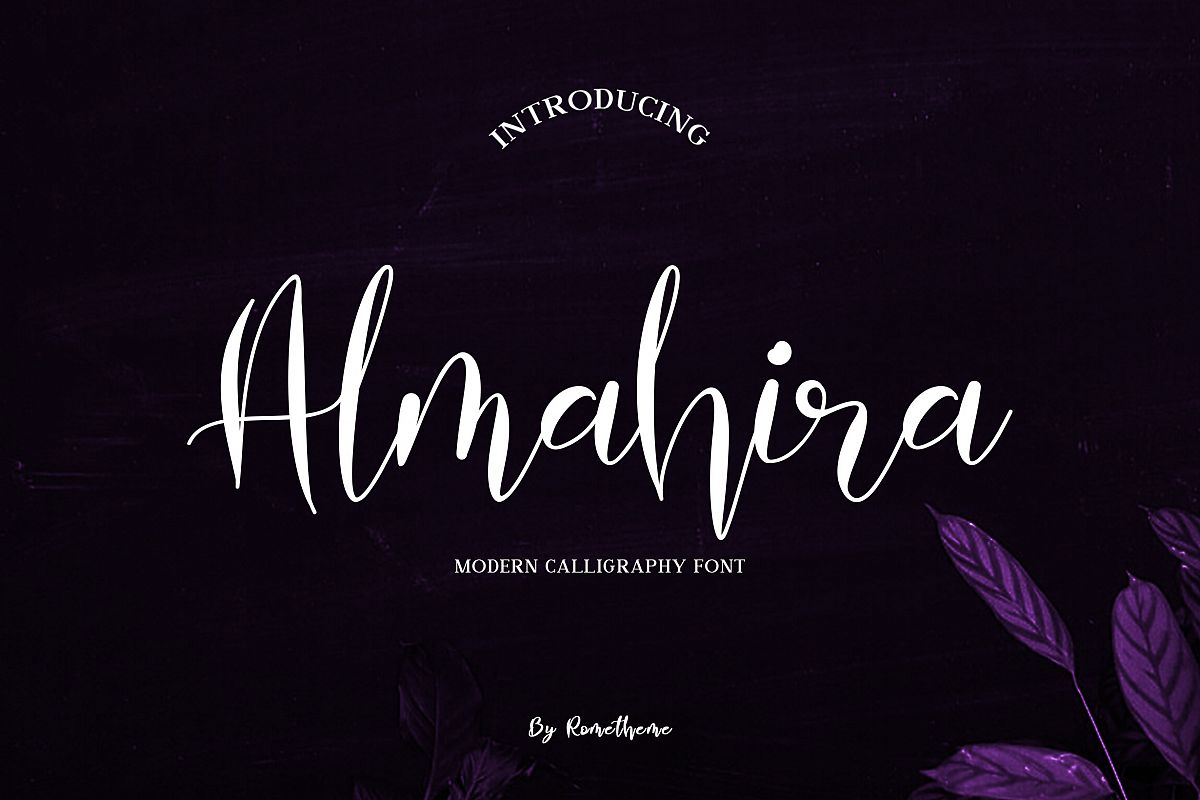
Almahira Script Font
Almahira is a modern calligraphy typeface, beautiful and luxurious. This elegant and beautiful font is stylish and versatile so you can use in a plethora of designs in both digital and print applications.Almahira font is the best choice for your professional design projects, including : signature, watermark on photography, quotes, album cover, book cover, business card, logo, branding, magazines, social media, advertisements, product designs, and many other design project.